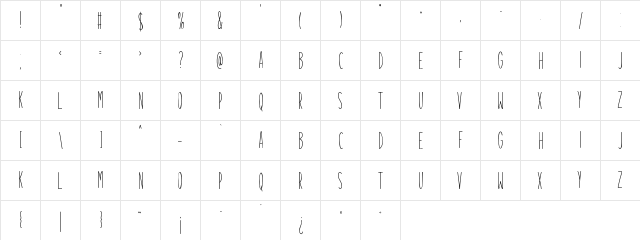
Mobstex - Free For Personal Use Regular
Design Context for Mobstex - Free For Personal Use Typeface
Mobstex - Free For Personal Use is a composed and adaptable typeface that performs quietly and consistently across a wide range of design contexts.